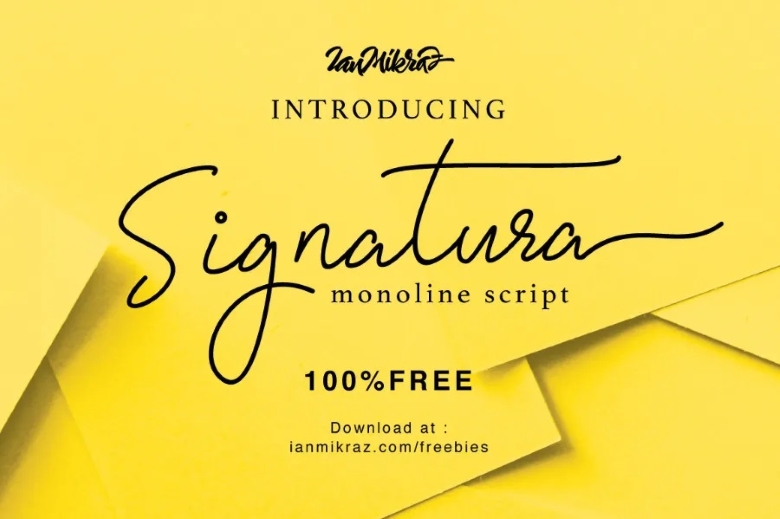
Signatura Monoline Script Font
In your new project, they are asked to design a set of fonts and I would like to recommend to you a new script font and you can use it for free. This is Signatura Monoline Script Font, as you have seen here in the post. Monoline signature is designed and can be shared for ianmikraz studio. Signatura Monoline is new modern calligraphy script, which derived from copperplate script to contemporary typeface, classic beauty and elegant touch.
Being a monoline free typeface its design includes 266 glyphs along with 86 alternate character contains and opentype features. These Include Stylistic Alternates, Standart Ligature and so on. All those alternate characters may be accessed through OpenType smart applications like Adobe Illustrator, Adobe InDesign and CorelDraw X6-X7…